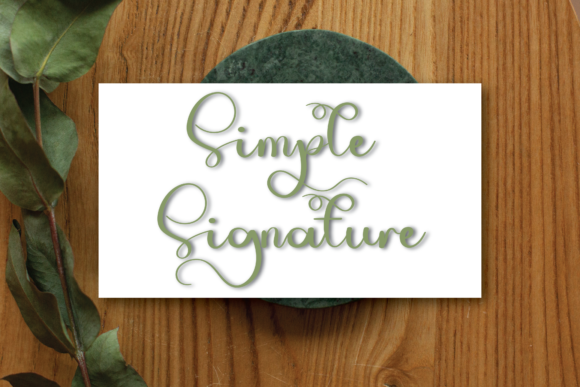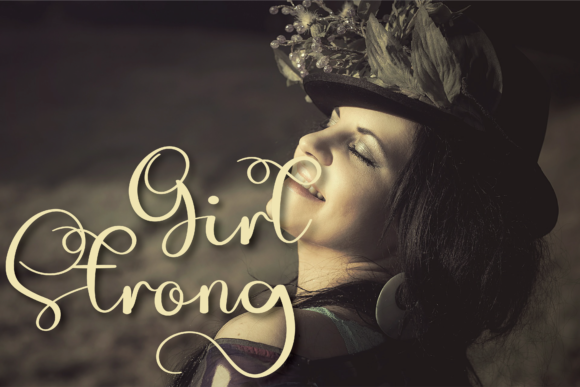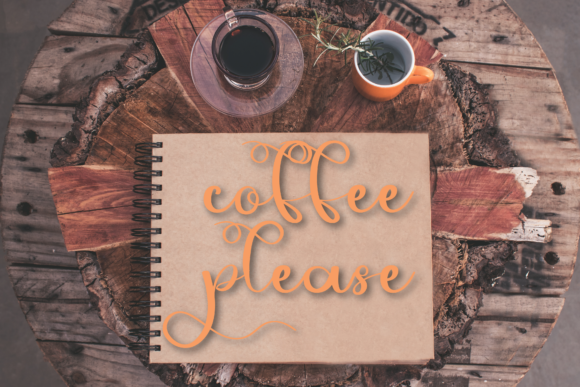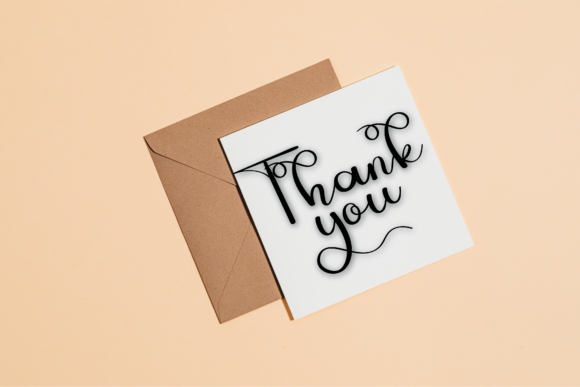
Santiago Font
About Santiago Font
Santiago is elegantly handwritten, looks beautiful, and modern impression. It looks stunning on wedding invitations, thank you cards, greeting cards, business cards, logos products, advertisements, quotes, and every other design which needs a handwritten touch. It presents varied and interesting hand strokes in the form of lines, fields, and stunning alternates.